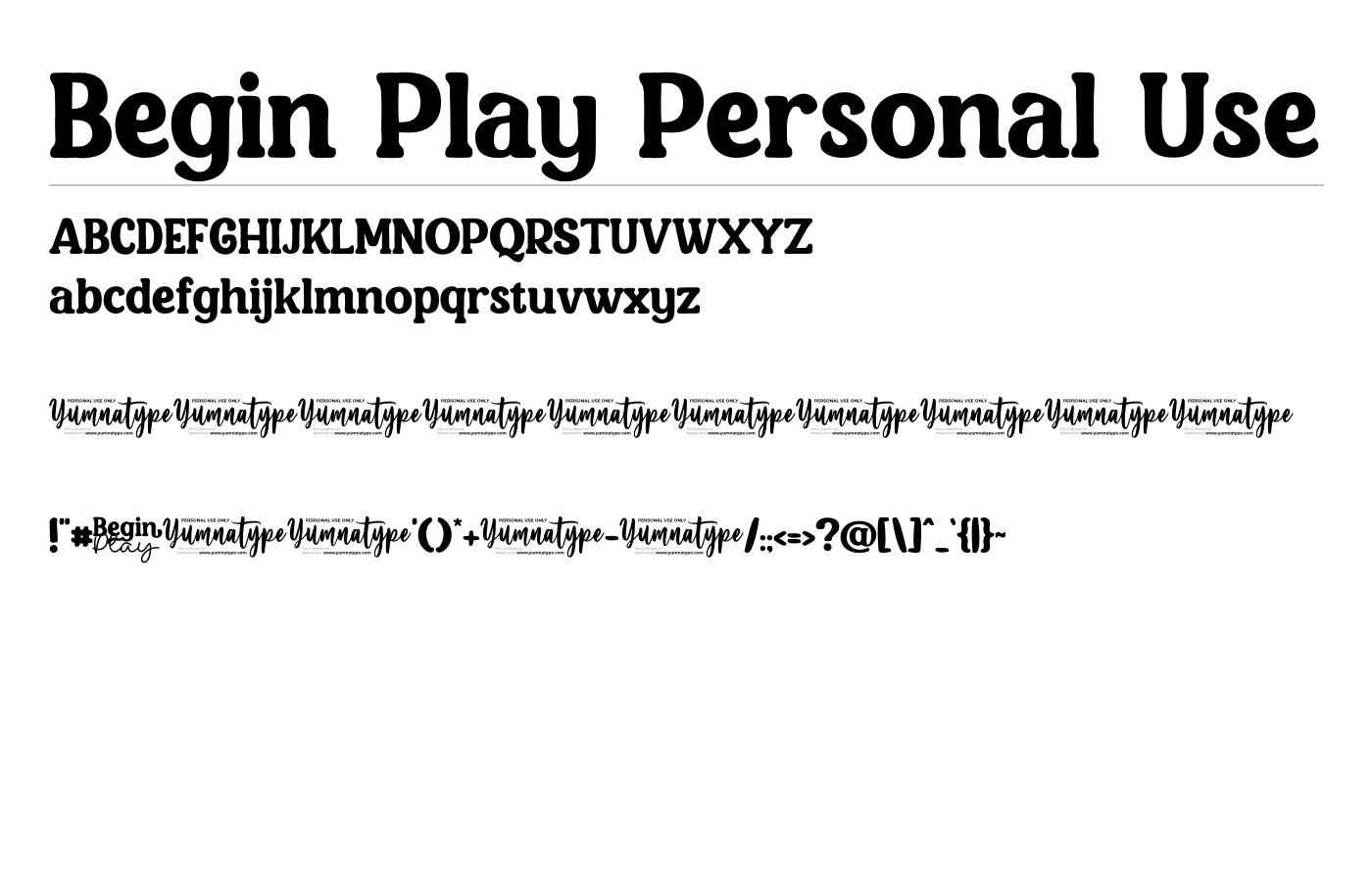
Begin Play Personal Use is a bold slab serif font with a playful and friendly character, featuring thick, rounded serifs and a strong, sturdy structure. Its slightly condensed width and medium contrast strokes give it a warm, approachable feel, making it perfect for eye-catching headlines, logos, or branding that seeks a casual yet confident vibe. This font works well in creative, fun contexts where a touch of personality and charm is desired without sacrificing readability.
Begin Play Personal Use Font
About Begin Play Personal Use Font
| Font family | Begin Play Personal Use Font |